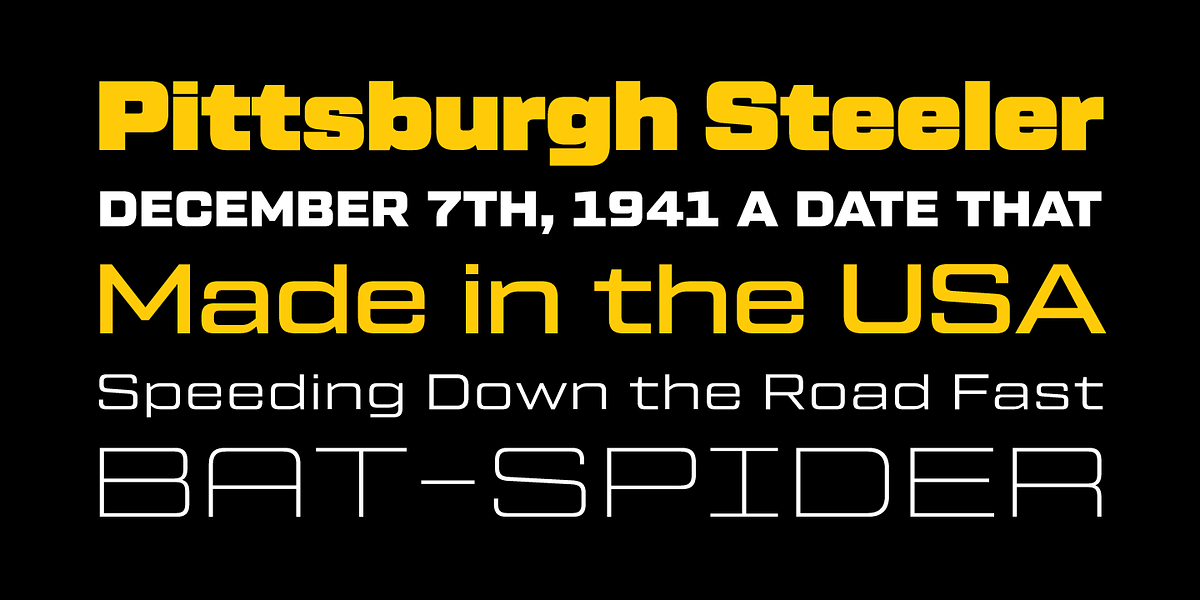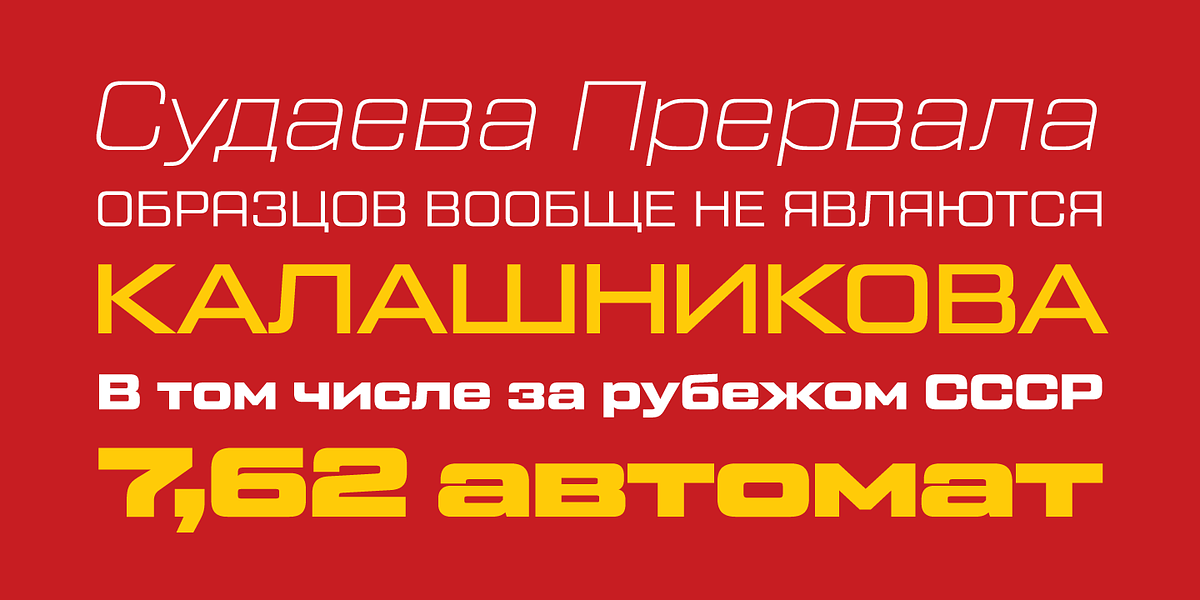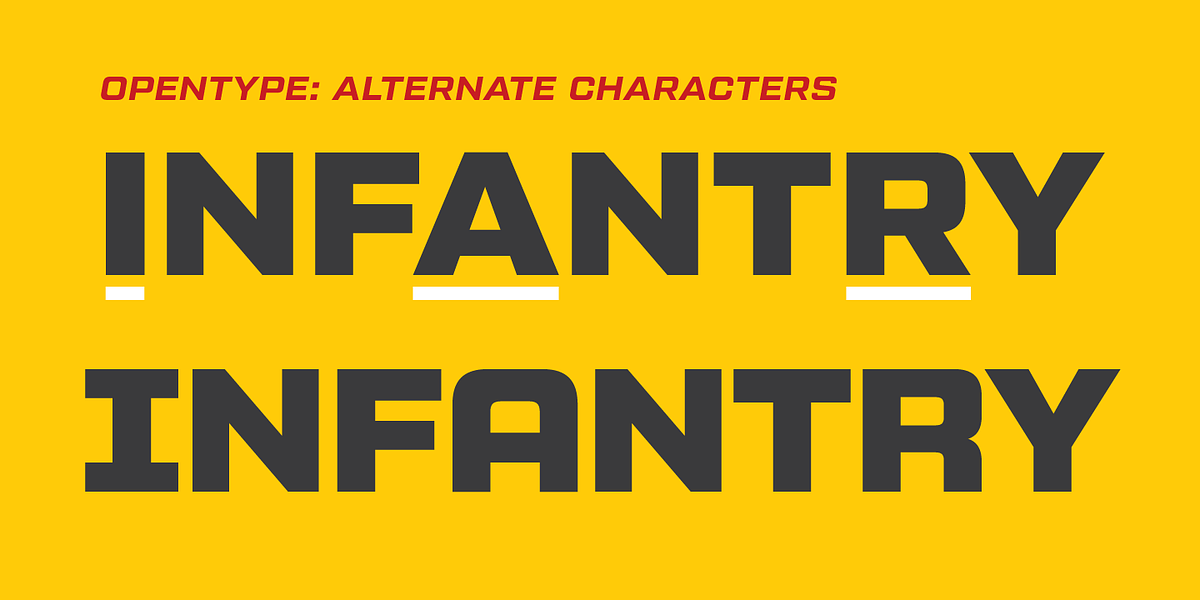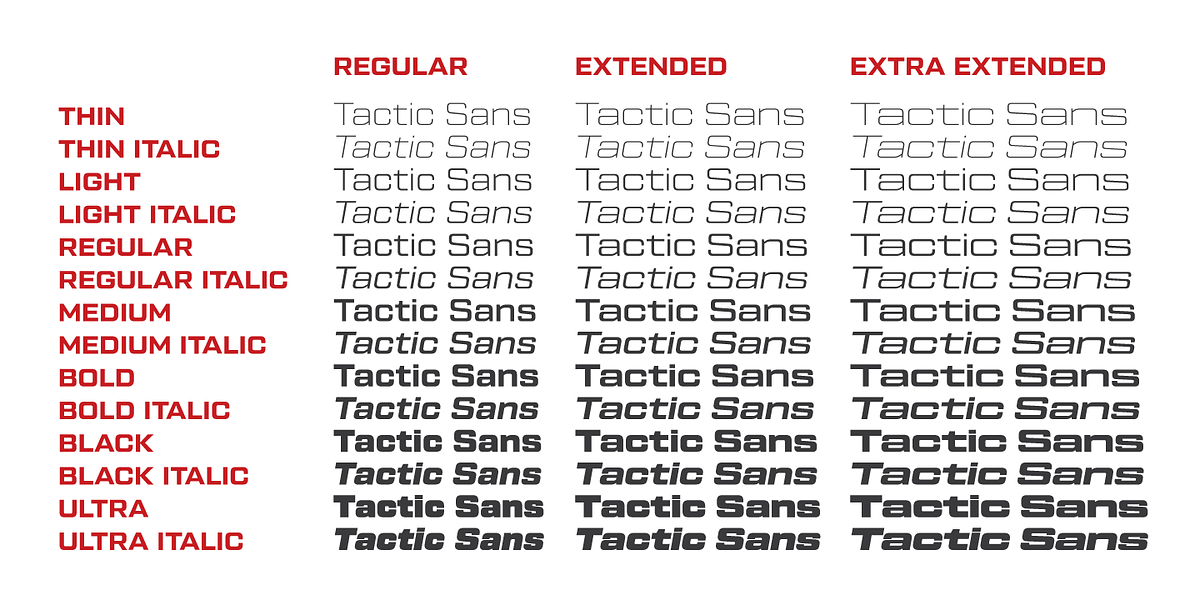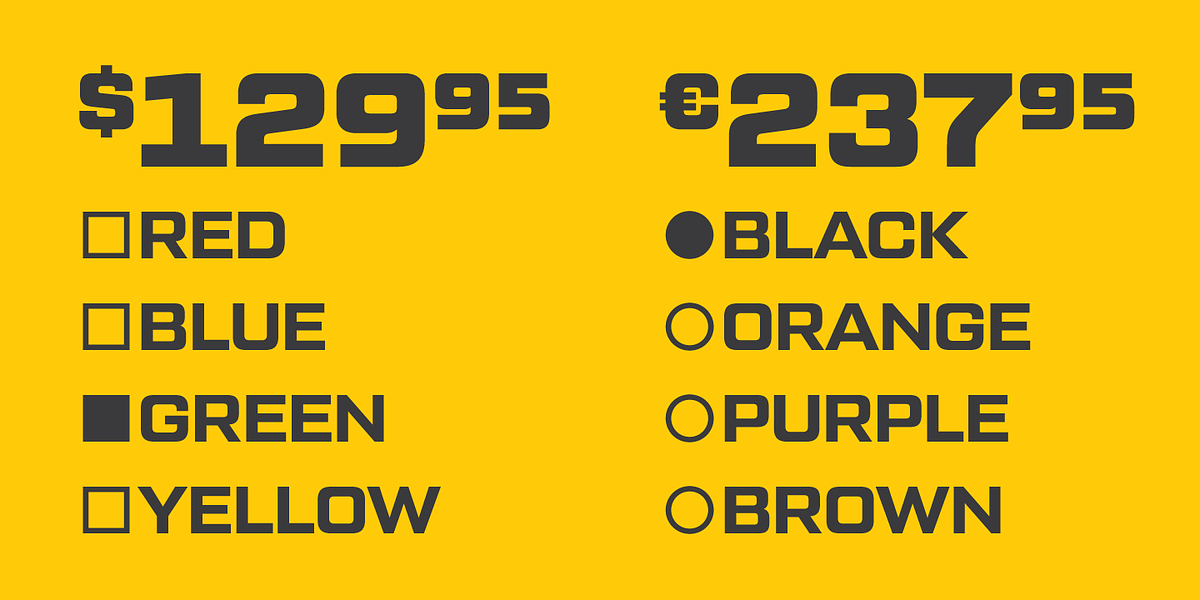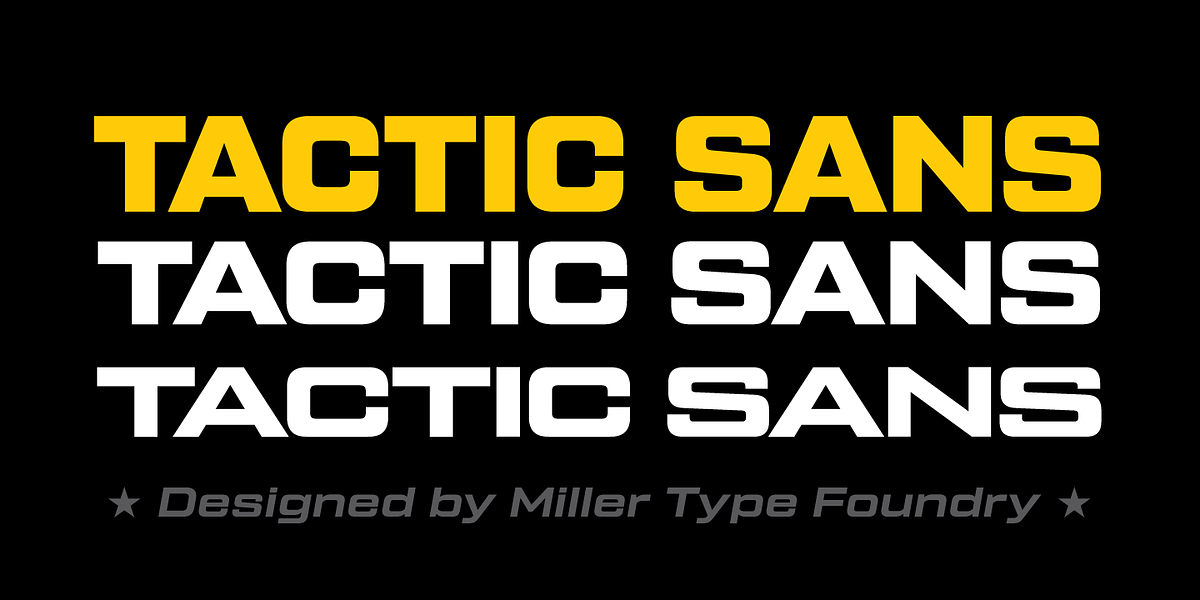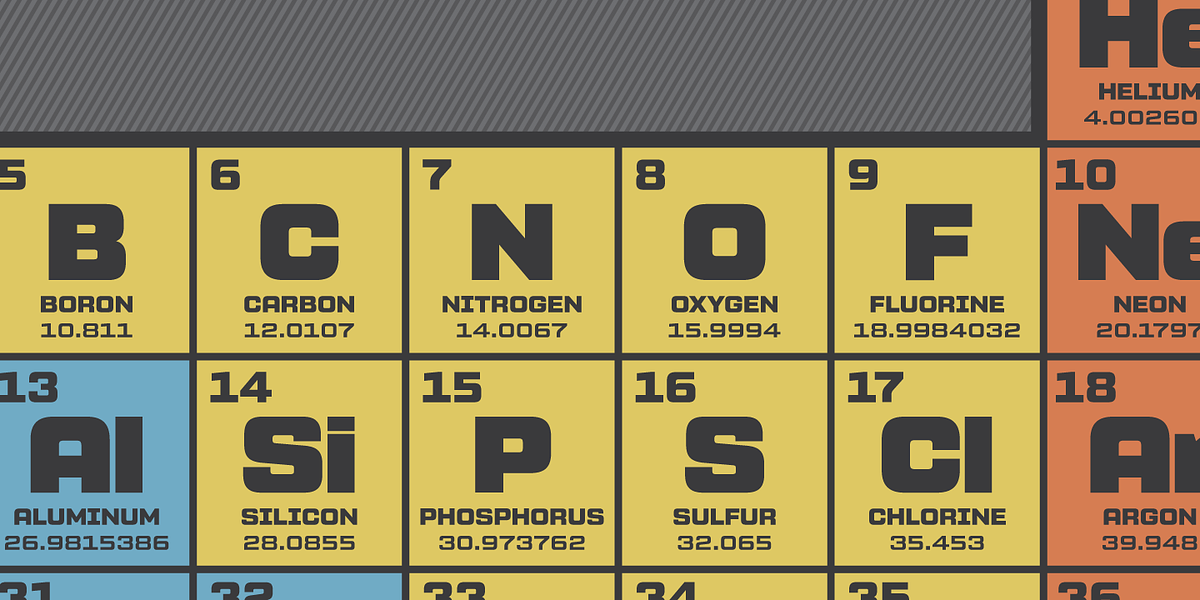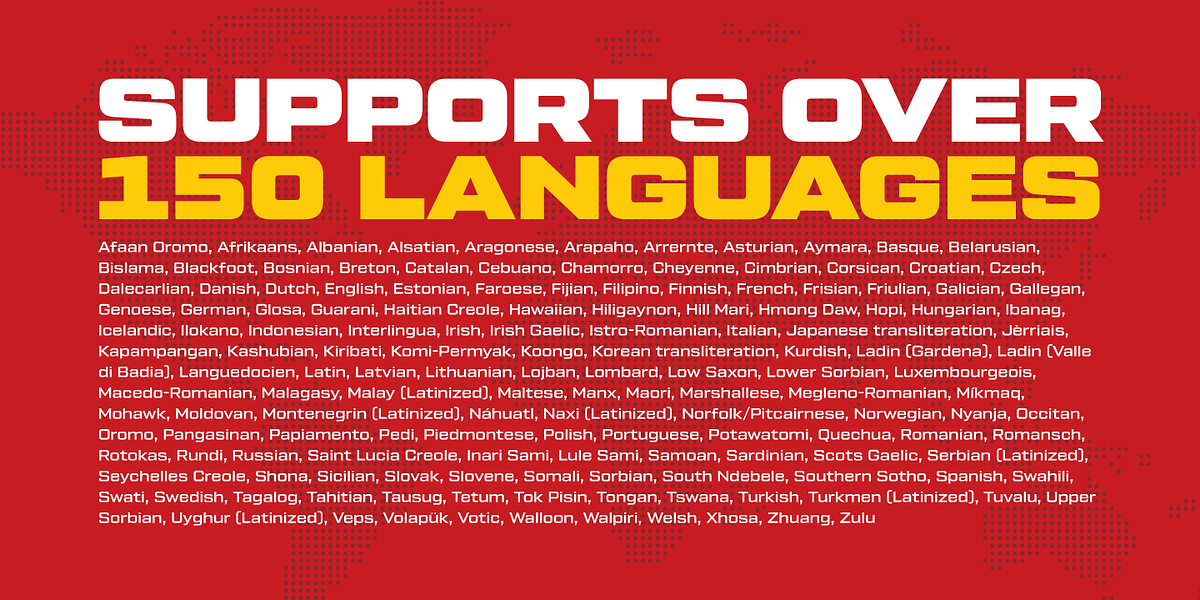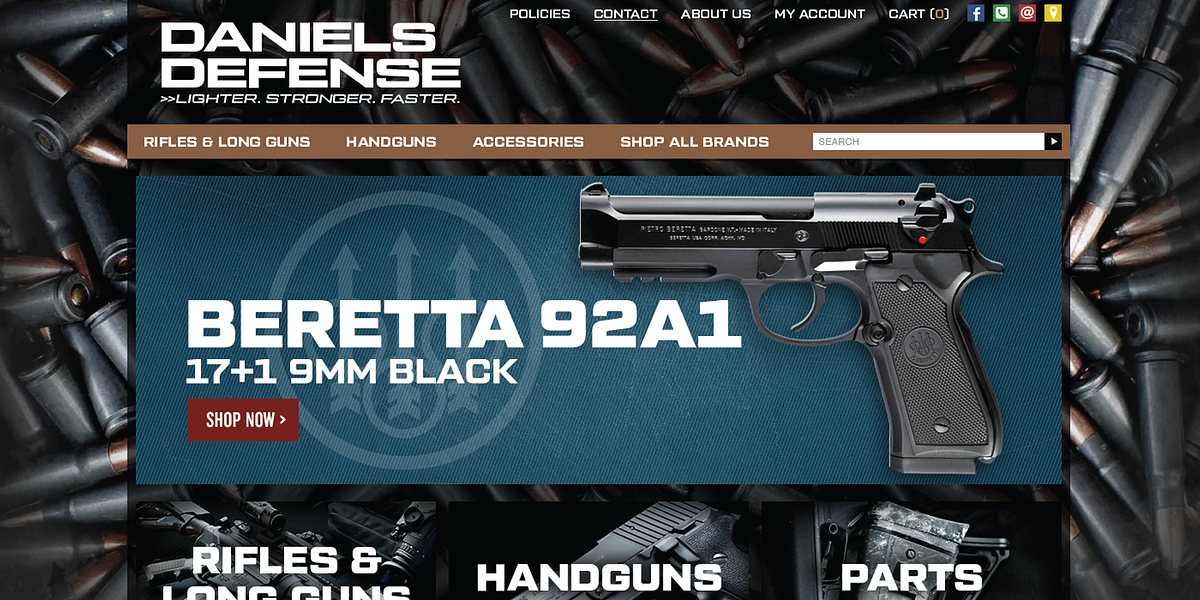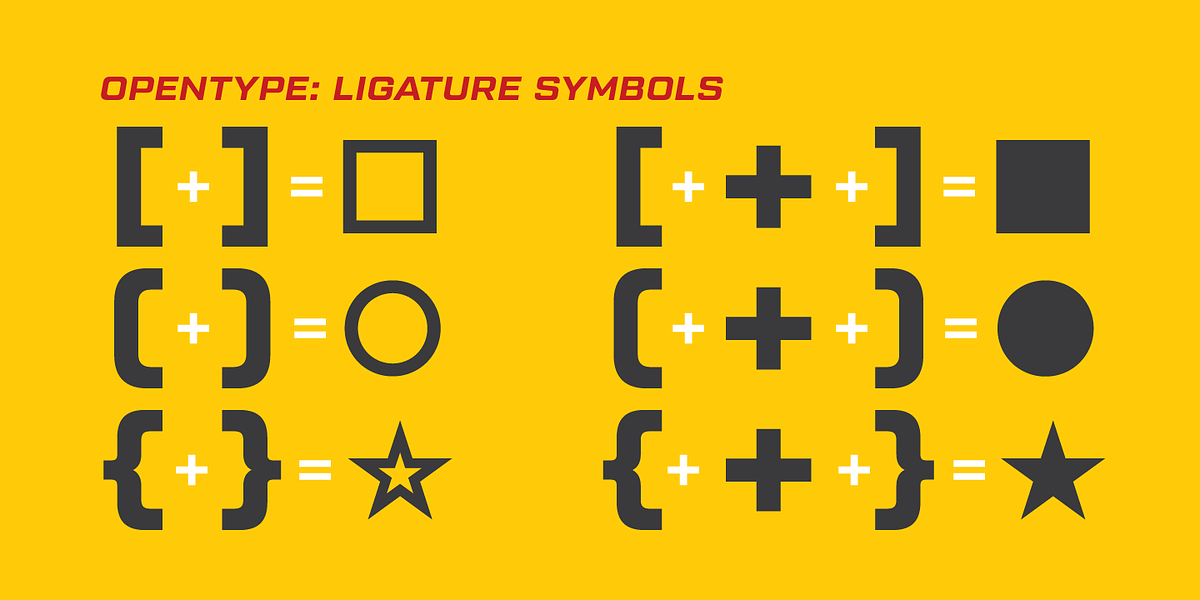
Tactic Sans
Tactic Sans is a versatile square sans serif font that comes in seven weights and three widths, offering flexibility for various applications. It includes italics for all styles and boasts numerous OpenType features such as alternate characters, tabular lining figures, ligatures (including symbol ligatures), numerators (including currency symbols), fractions and more.